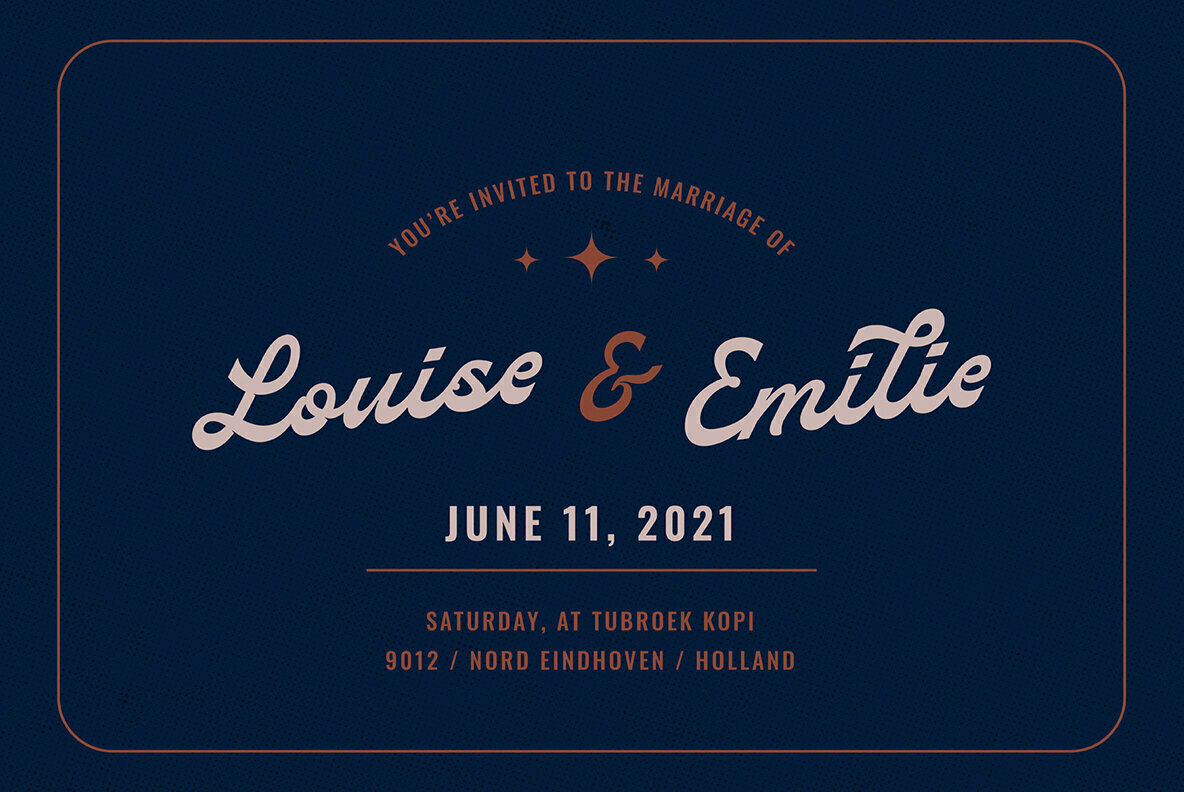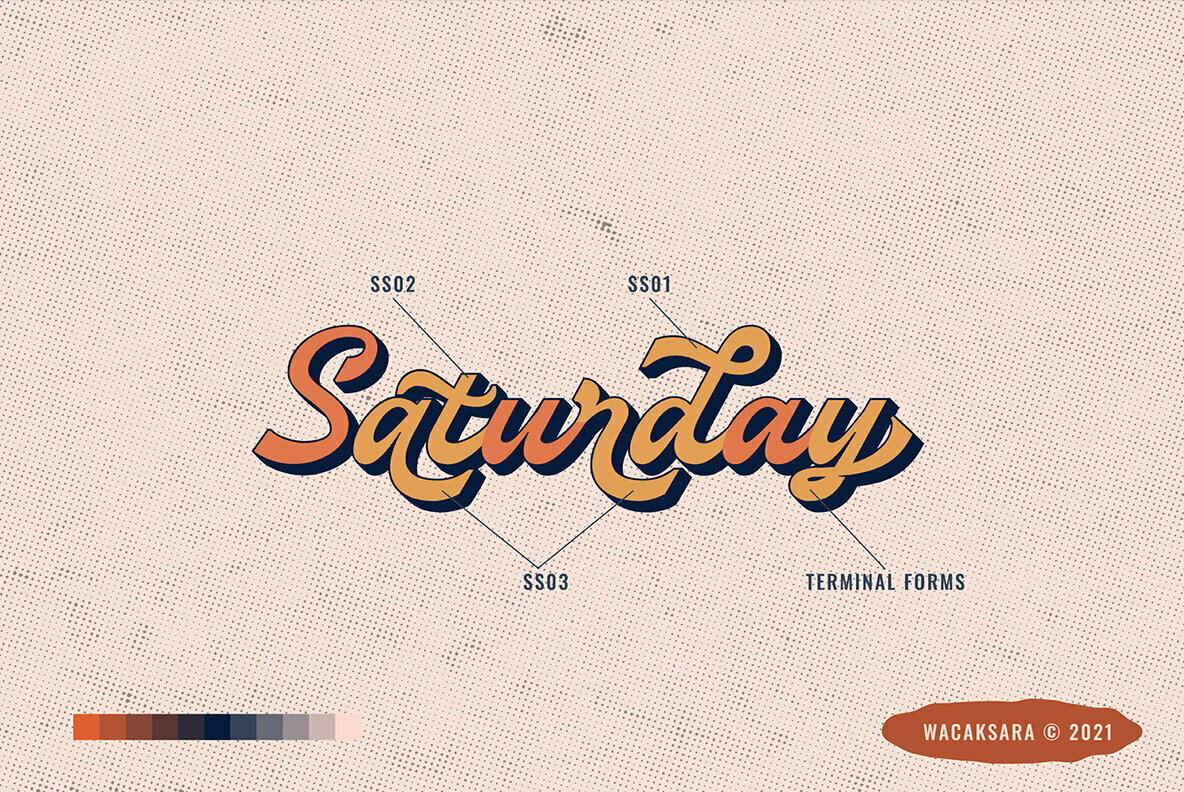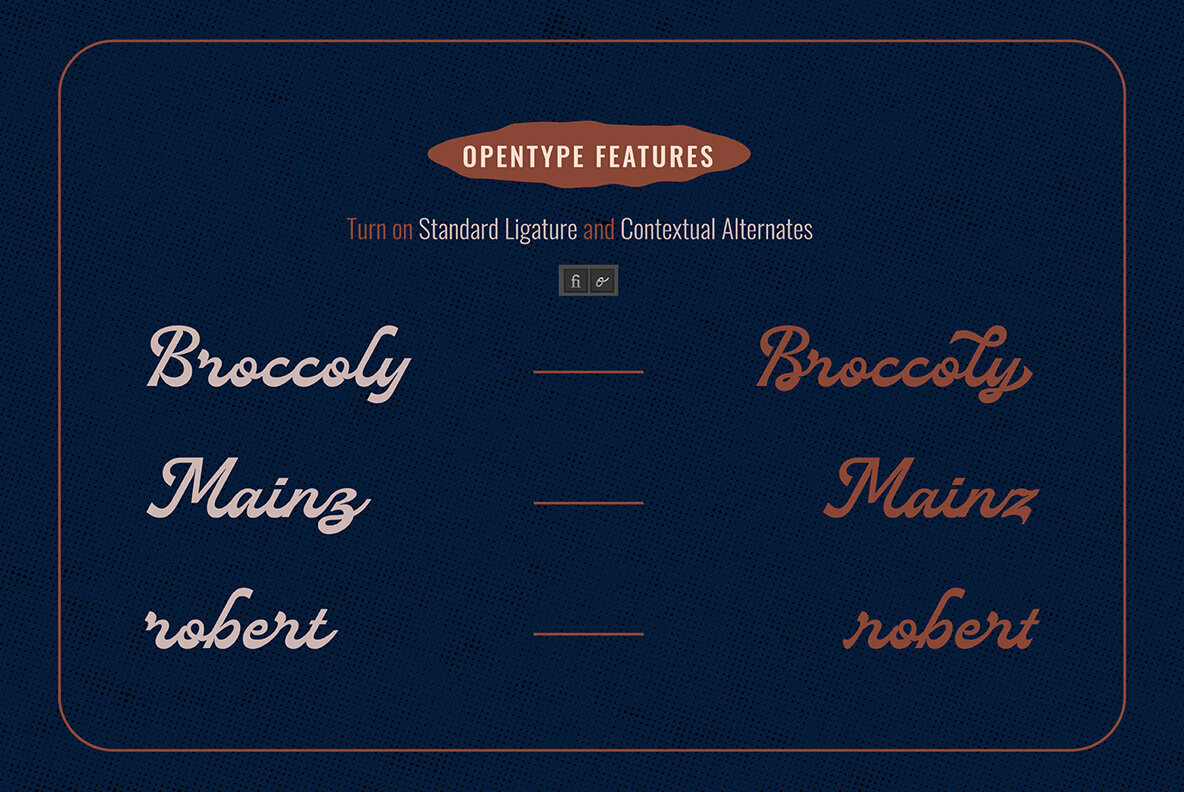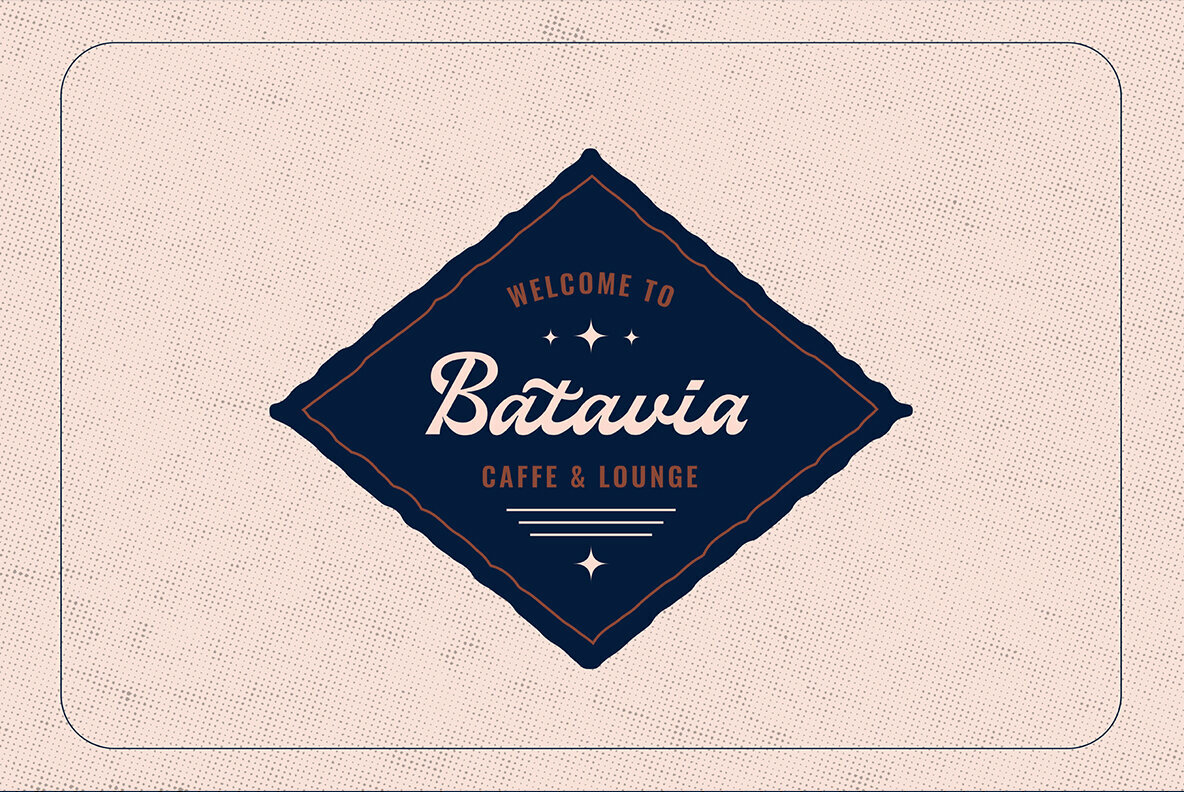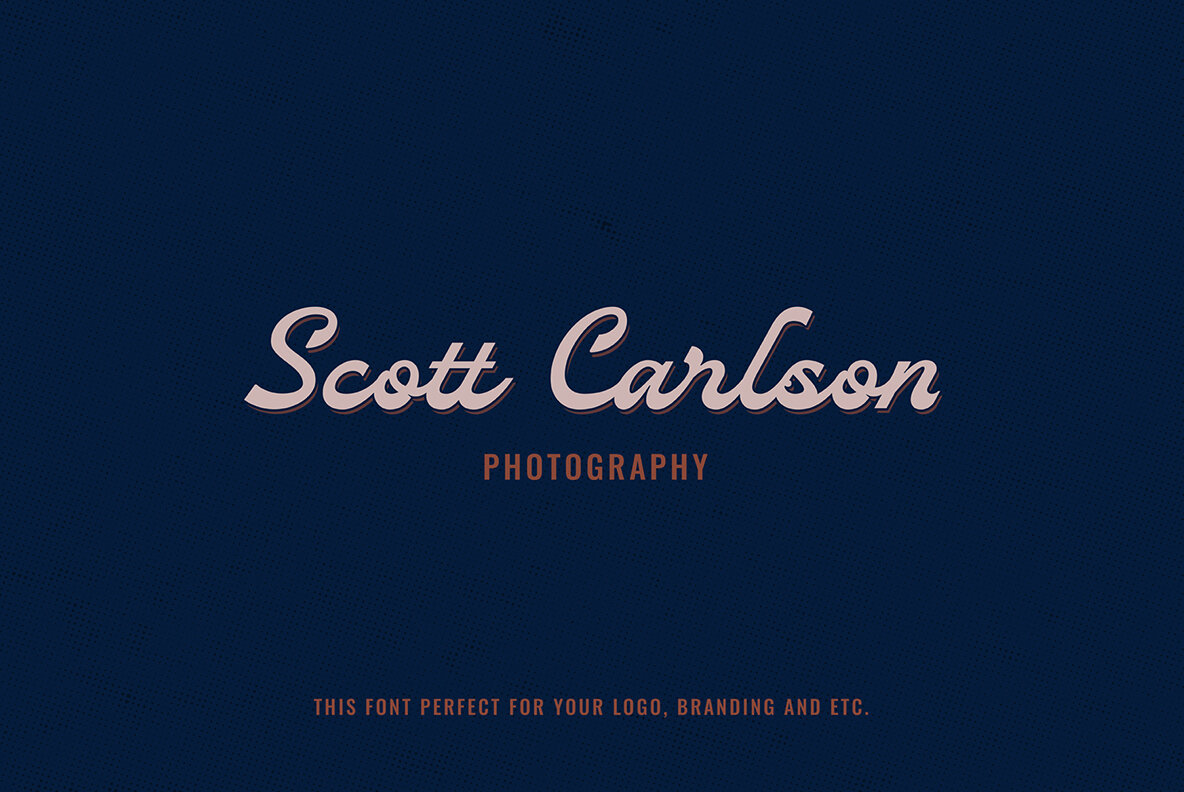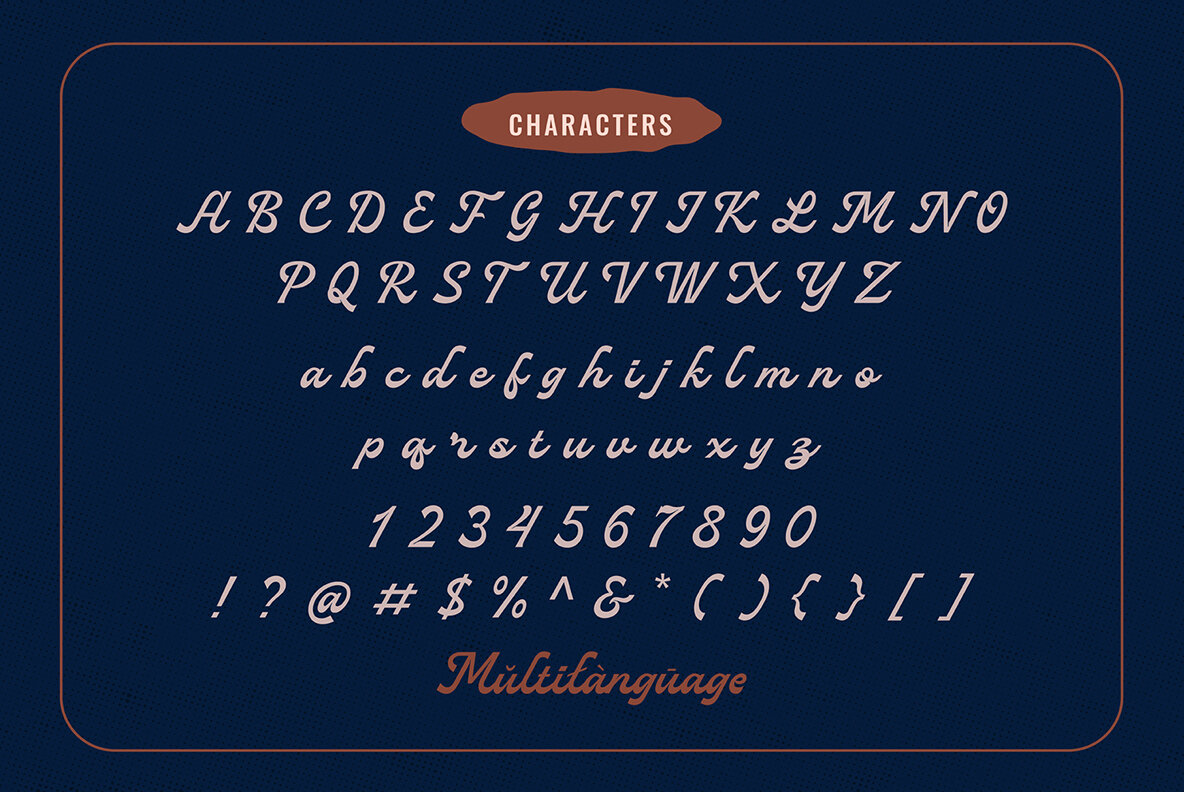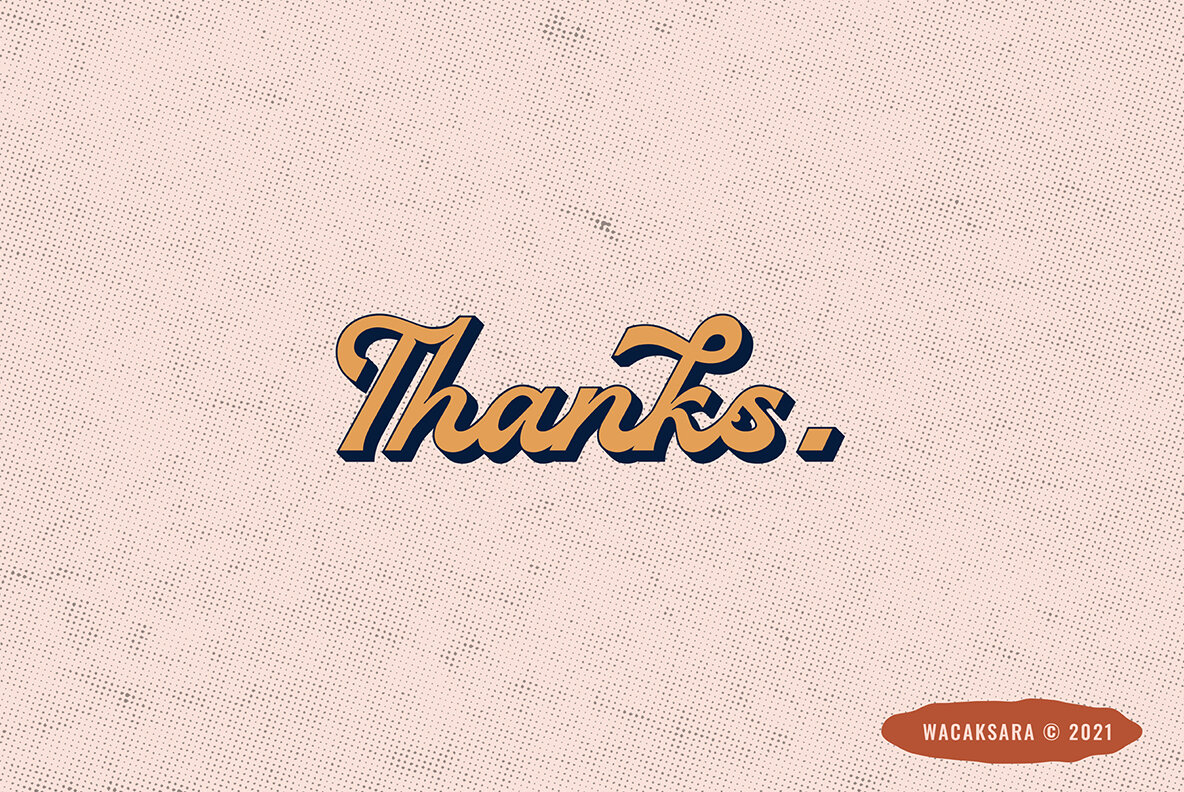
Meritorious Script Font
Meritorious Extrude Regular
Meritorious Script Regular
Meritorious Script encapsulates the essence of vintage design with its robust, bold style, offering both regular and extruded versions. Inspired by the timeless appeal of manual lettering, this font is perfect for a myriad of design applications. Whether you're crafting book covers, creating logotypes, working on branding projects, designing letterheads, or developing posters, Meritorious Script provides a distinctive edge.Meritorious Script: Bold Vintage Charm
Its versatility extends to product packaging, labels, and invitations, ensuring your creations resonate with both elegance and individuality.Comprehensive Character Set